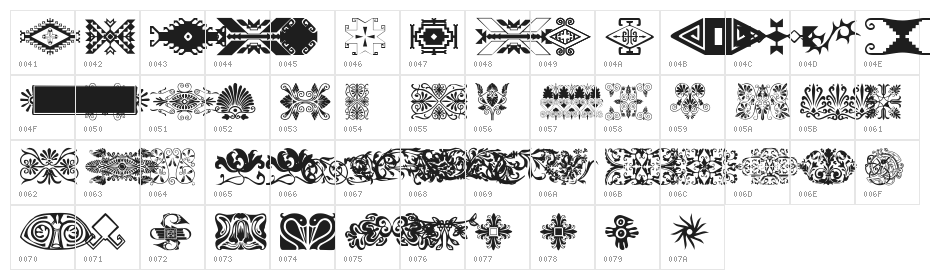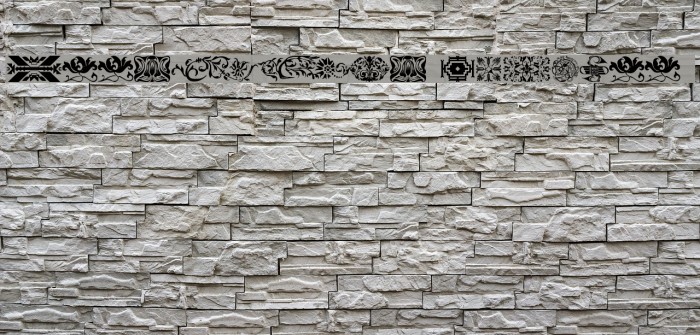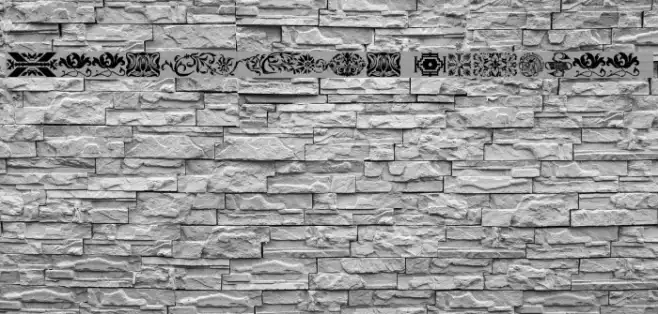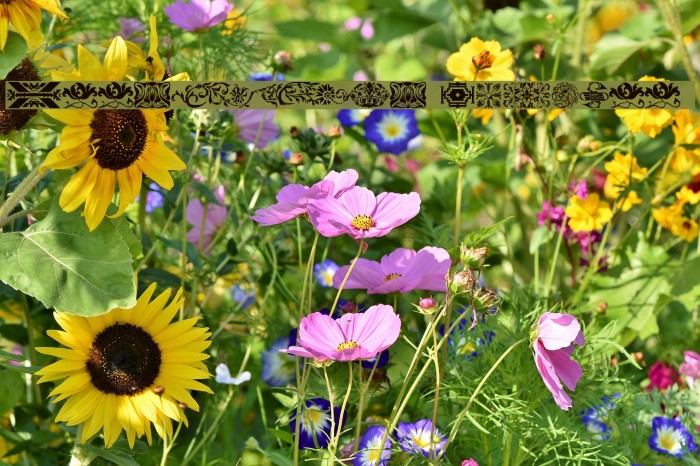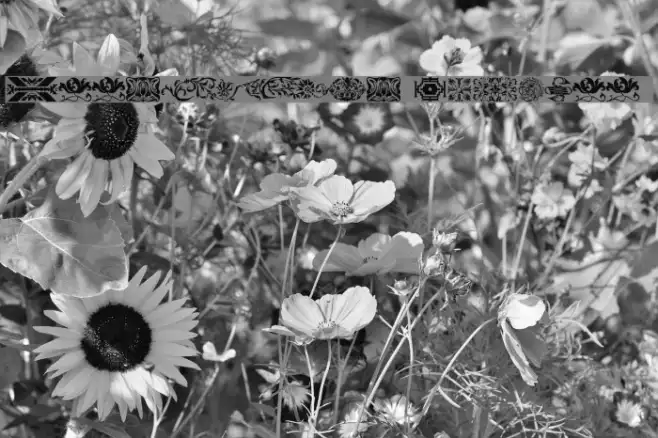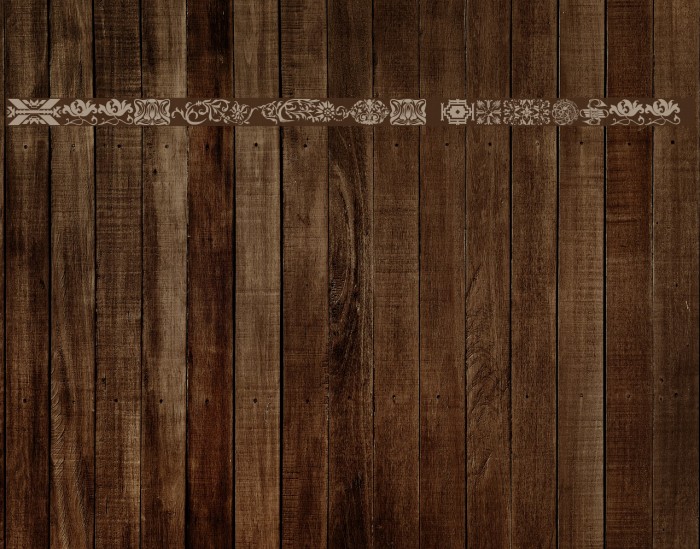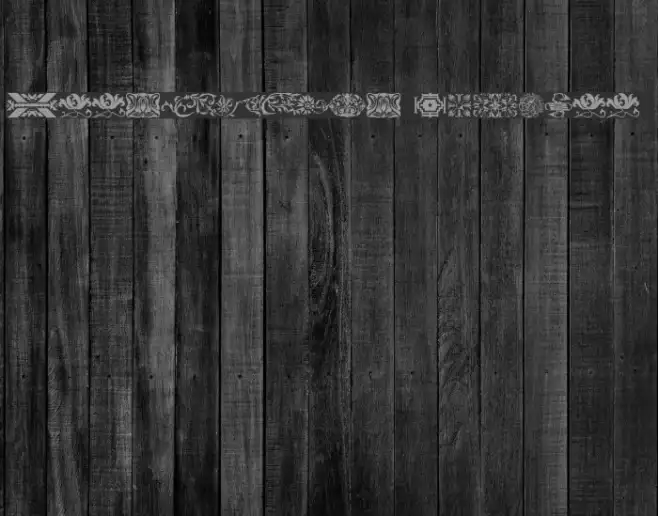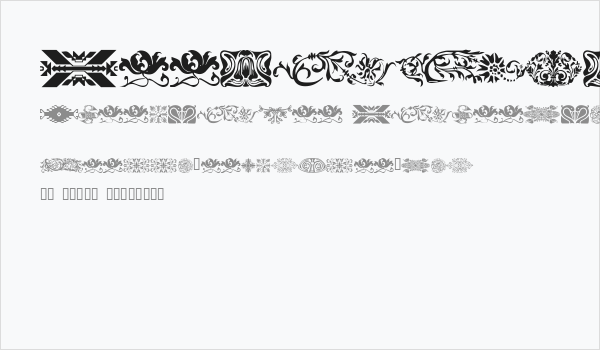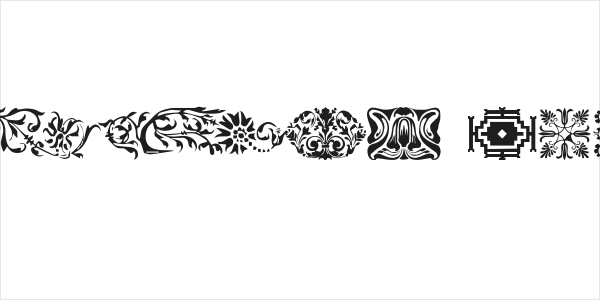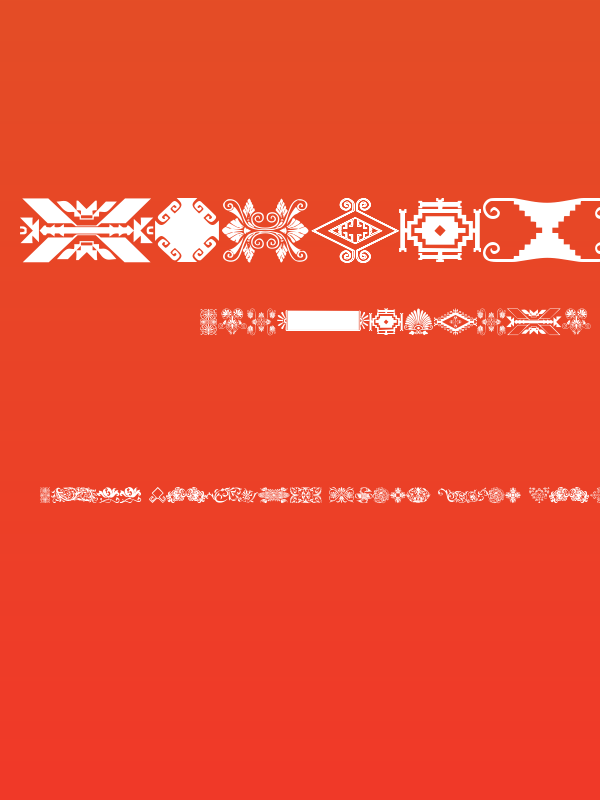
Designs Galore 4 Font
Designs Galore 4 Description
A highly decorative and ornamental dingbat font featuring a wide variety of intricate borders, flourishes, geometric motifs, and rectangular frames. Each character is a unique design element, ranging from floral and abstract patterns to bold outlined rectangles, suitable for embellishing layouts.
| Overall Style | Decorative, Ornamental, Vintage |
| Use Case | Borders, frames, embellishments, decorative accents |
| Proposed Projects | Invitations, certificates, decorative borders, scrapbooking, vintage-style posters, digital embellishments. |